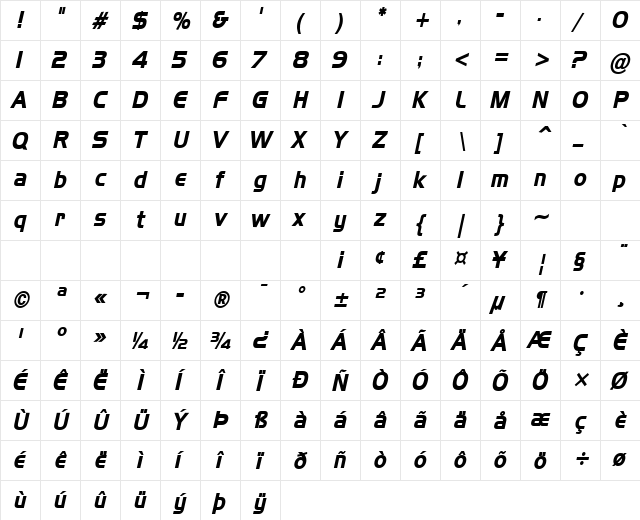
Hanzel-Condensed Bold Italic Font Preview
Design Context for Hanzel-Condensed Typeface
Hanzel-Condensed takes a measured approach to typography — its balanced proportions and neutral character make it a reliable workhorse for both digital and print work. The slanted form adds forward momentum and visual energy. Its bold stroke weight gives it real presence on the page. Its narrow stance lets it pack a punch even in space-constrained designs.
Pro Tip: Try Hanzel-Condensed for annotation and caption copy alongside an upright companion — the contrast in angle creates a dynamic but ordered typographic system.